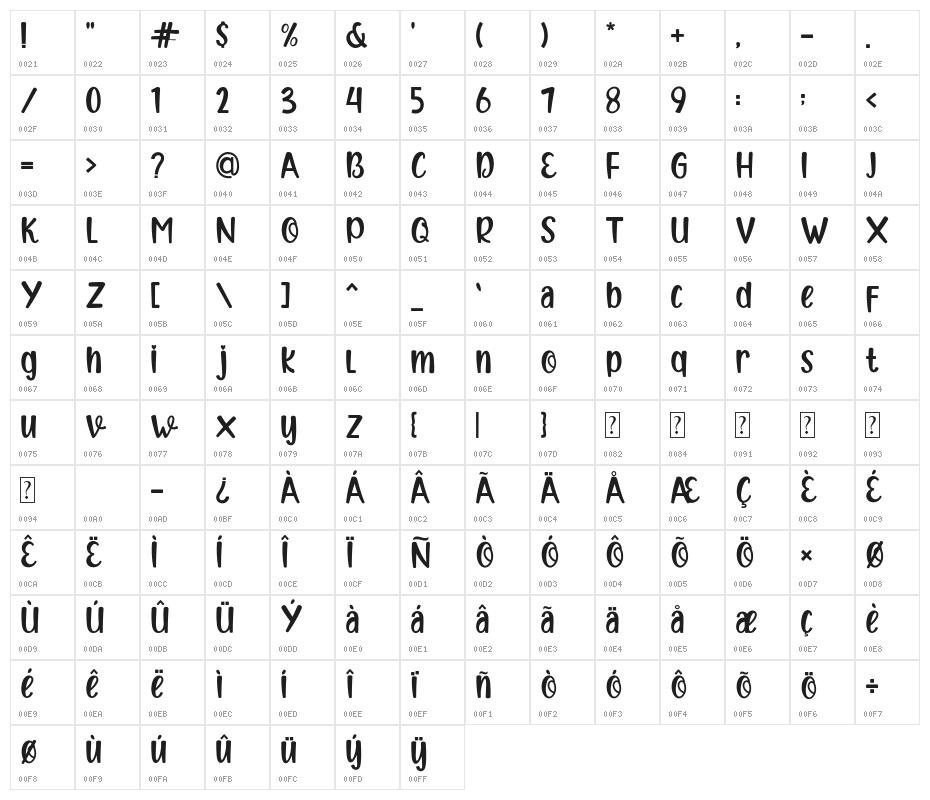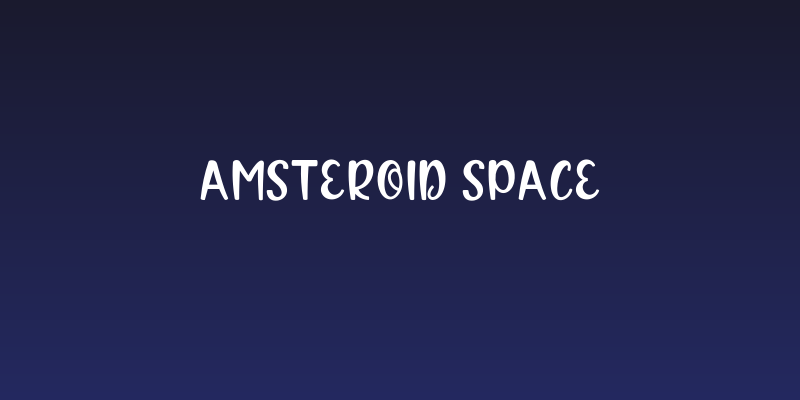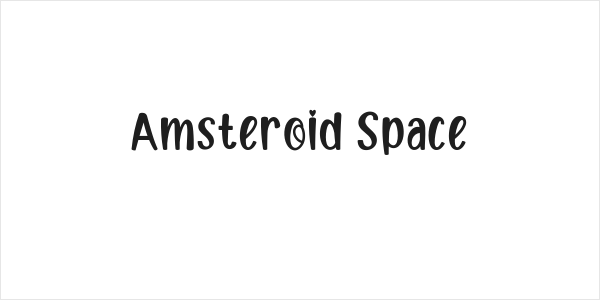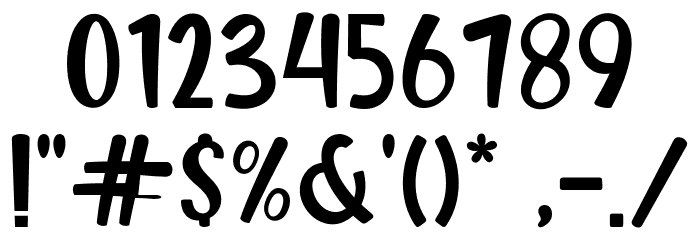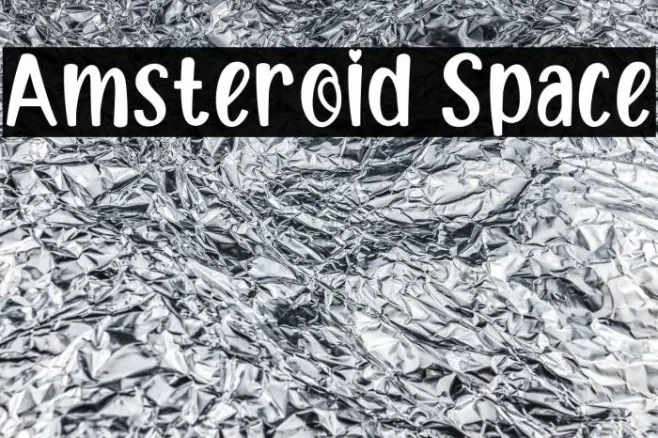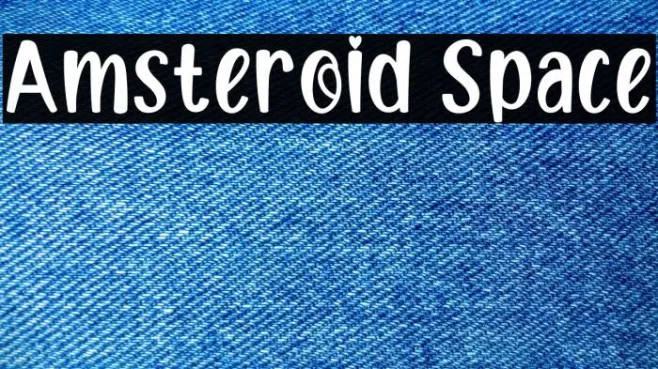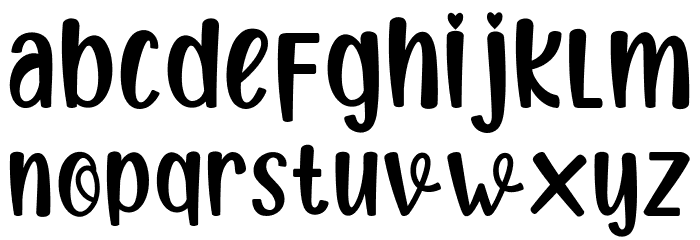
Amsteroid Space Font
Amsteroid Space Description
This playful and whimsical font features bold, rounded characters with a hand-drawn aesthetic. The uppercase and lowercase letters are distinct yet harmonious, with a slight tilt that adds a dynamic feel. The numbers are equally bold, maintaining the font's consistent style. Special characters are creatively designed, adding to the font's unique personality. The overall appearance is friendly and approachable, making it suitable for projects that require a touch of fun and creativity.